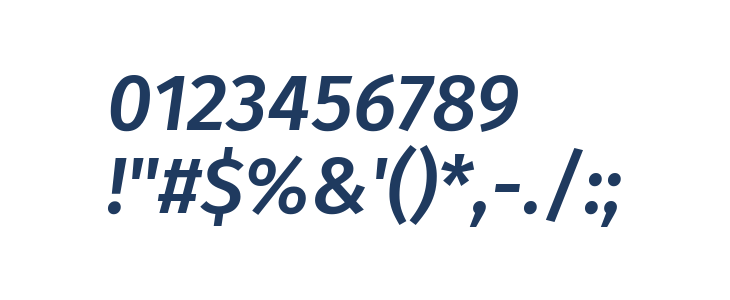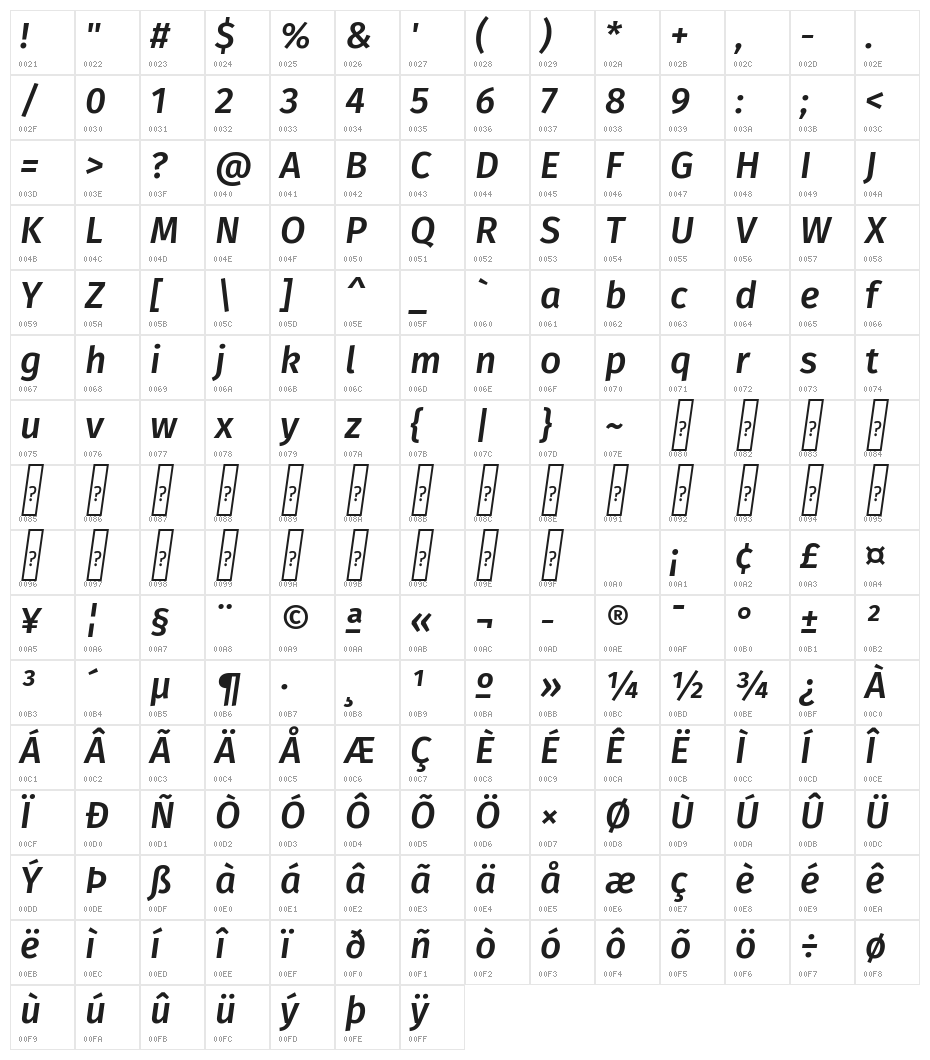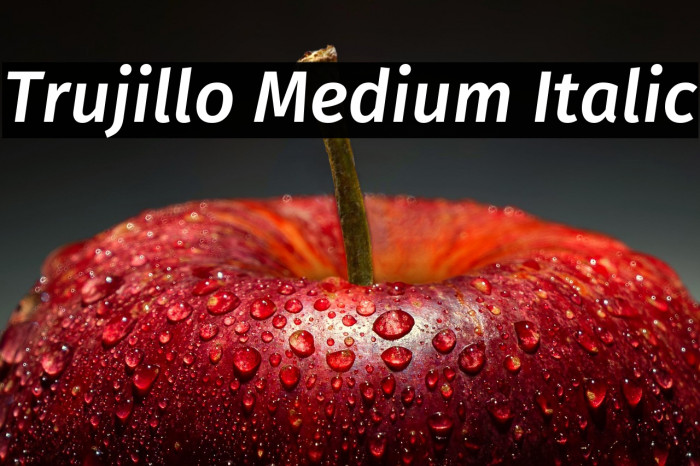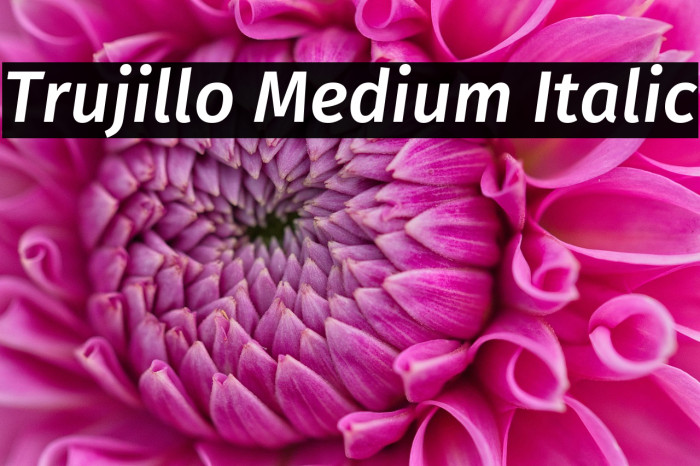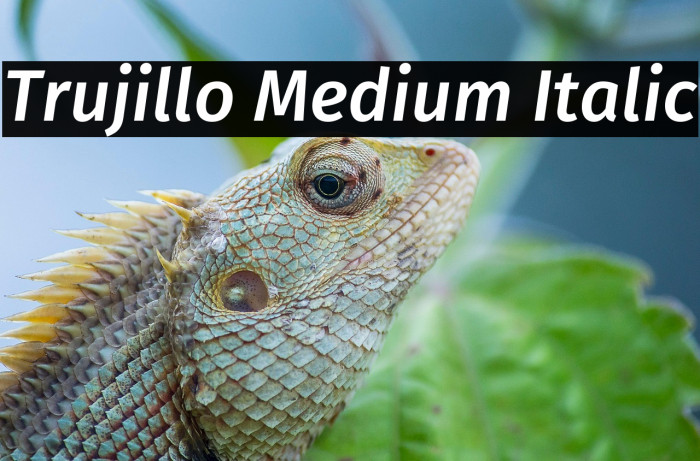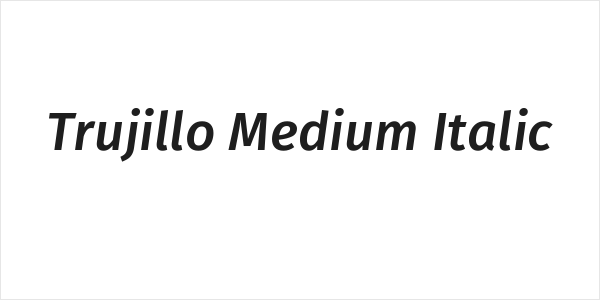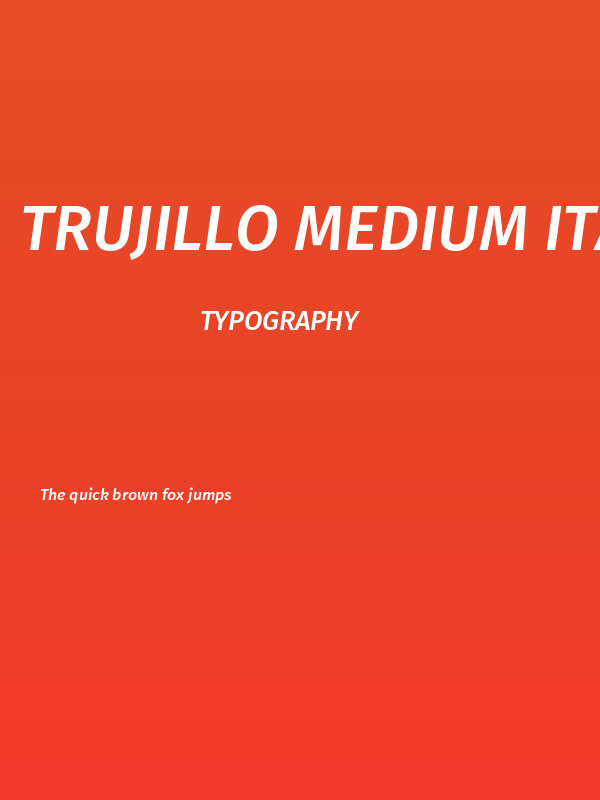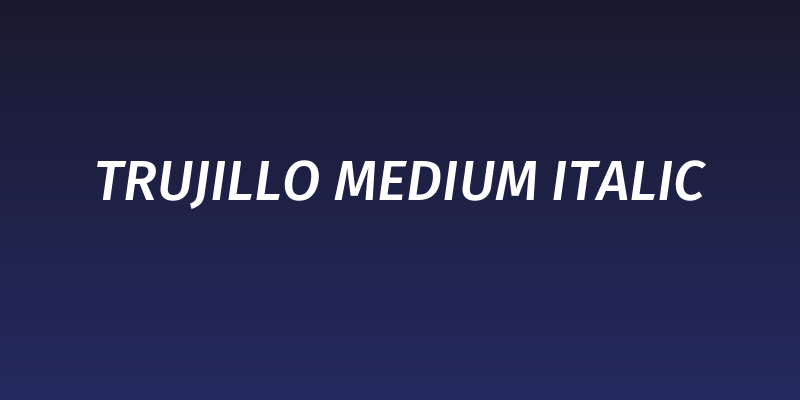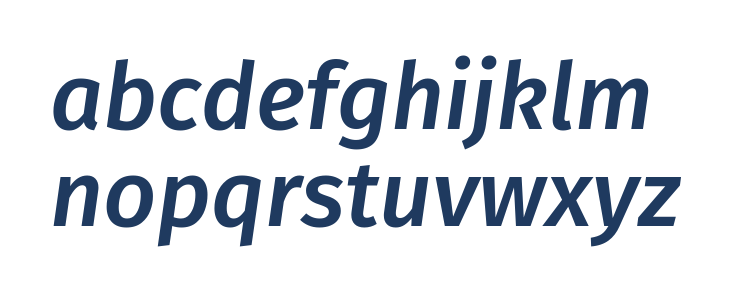
Trujillo Medium Italic Font
Trujillo Medium Italic Description
This font features a sleek and modern design with a slight italic slant, giving it a dynamic and forward-moving appearance. The characters are well-proportioned with a medium weight, providing a balanced look that is neither too heavy nor too light. The strokes are smooth and consistent, offering a clean and professional aesthetic. The uppercase letters are bold and commanding, while the lowercase letters maintain a friendly and approachable feel. The numerals are clear and easy to read, making them suitable for various applications. Special characters are included, enhancing the font's versatility. Overall, this font exudes a contemporary style that is both elegant and functional.